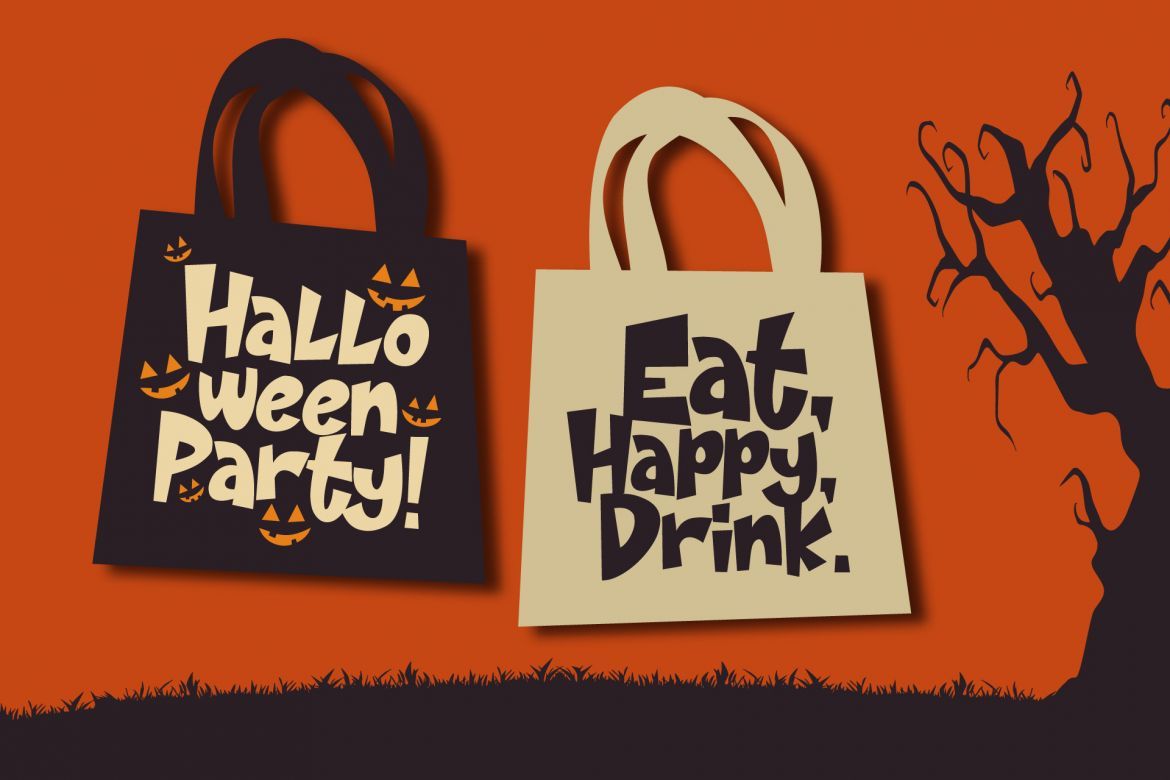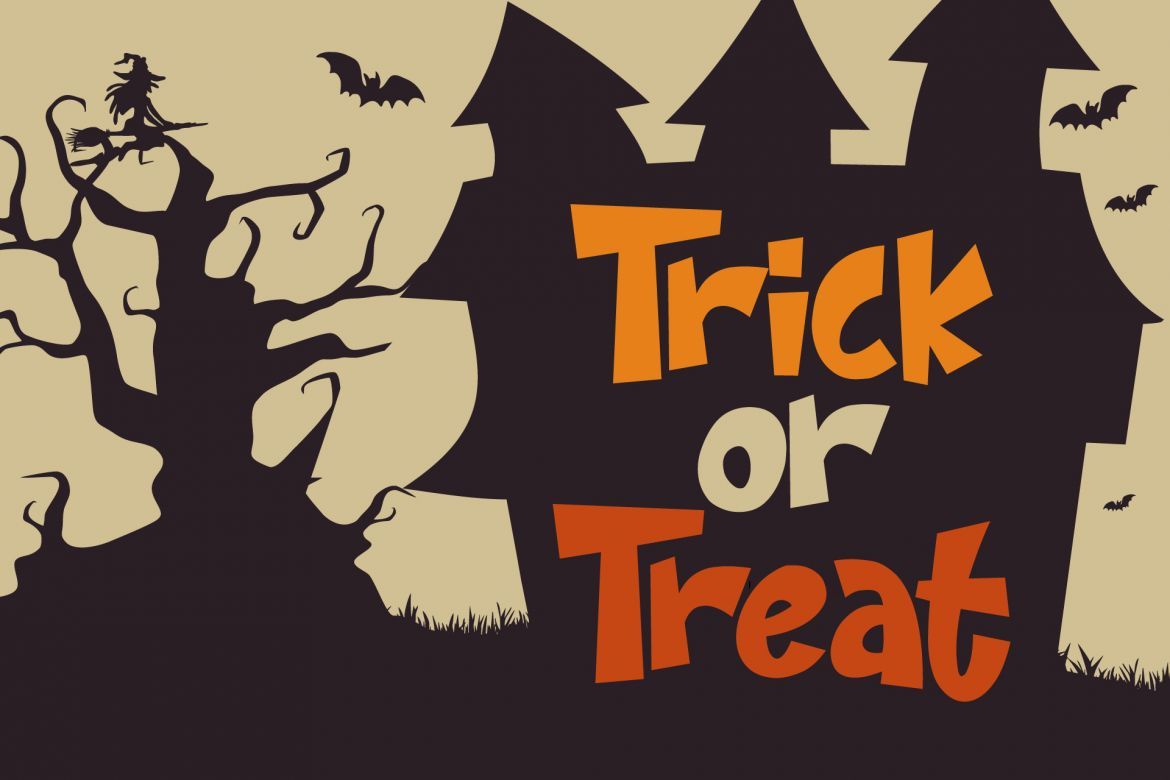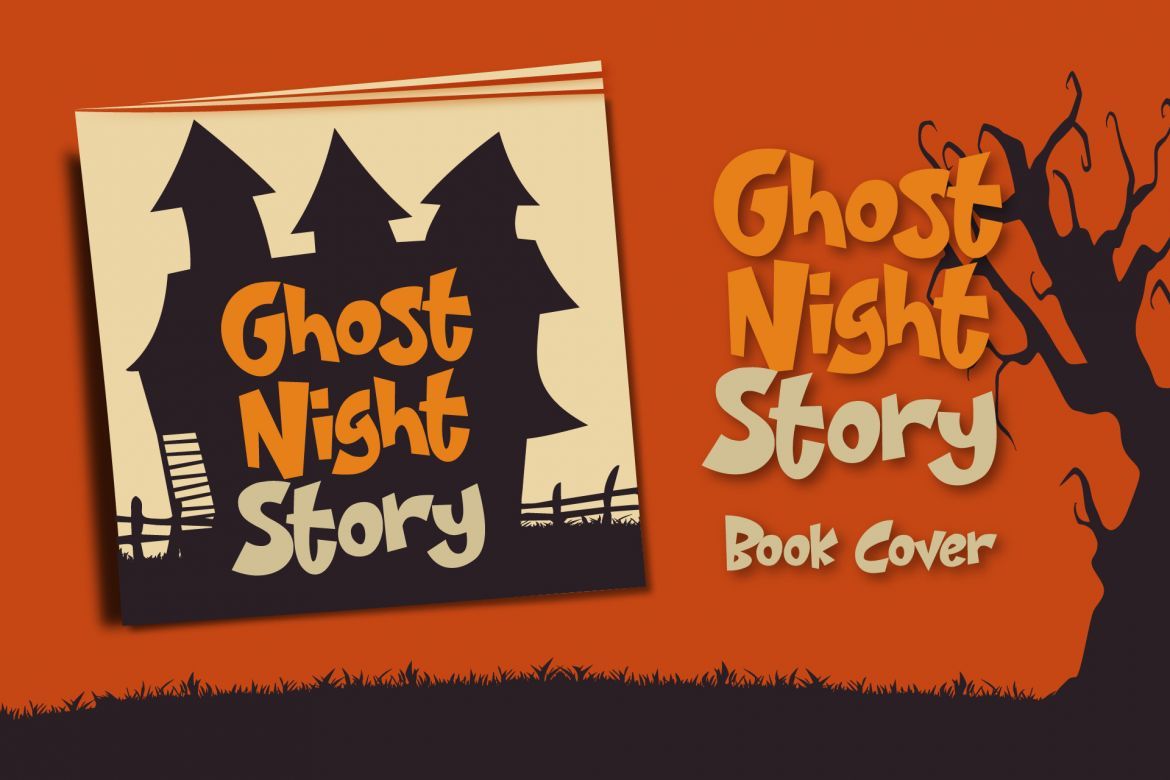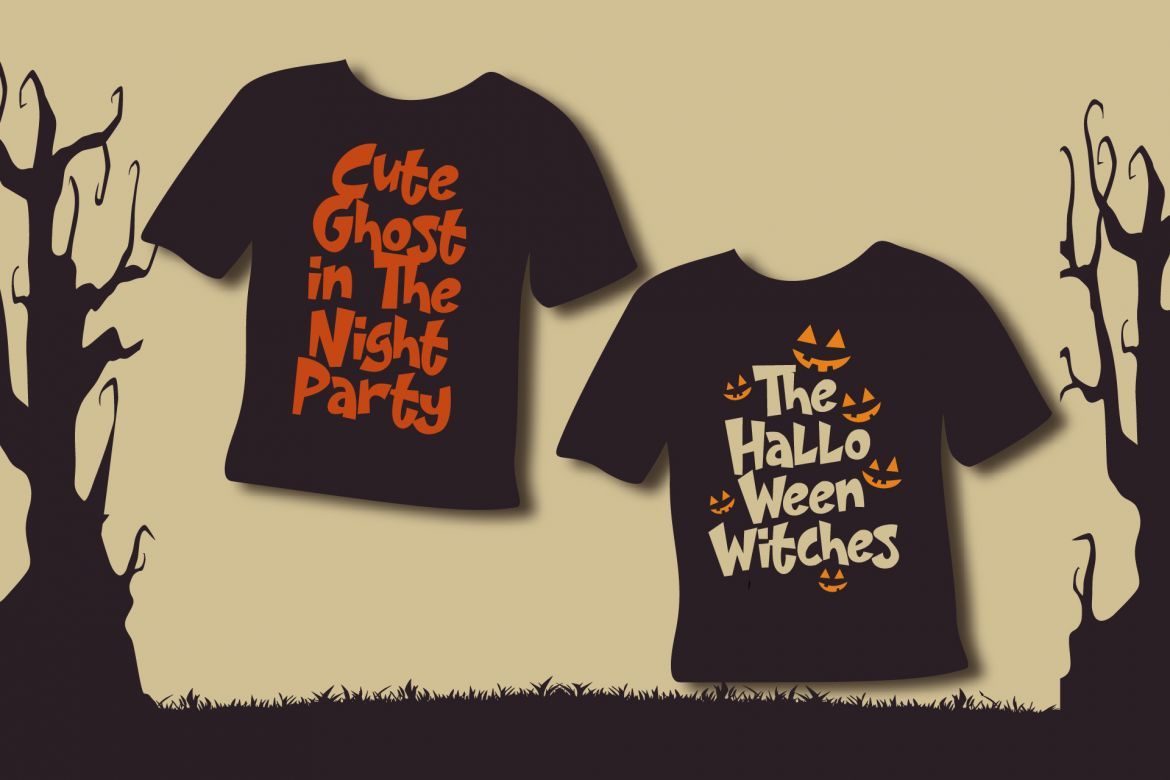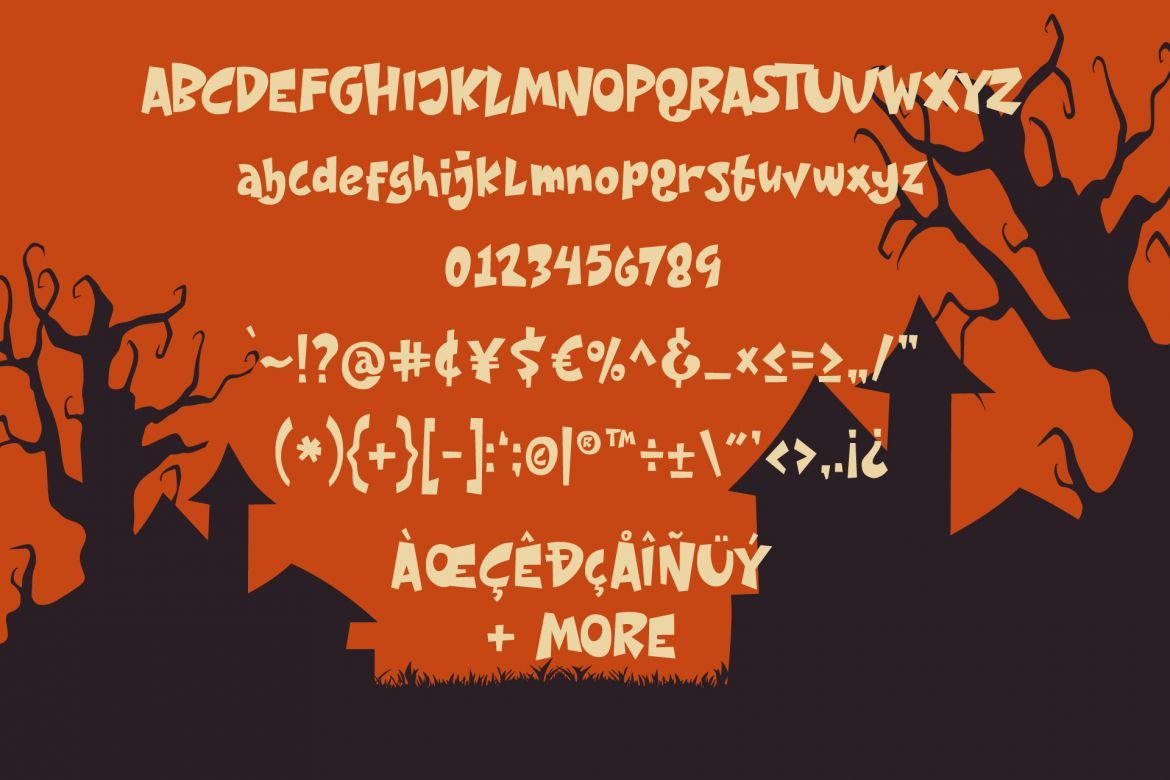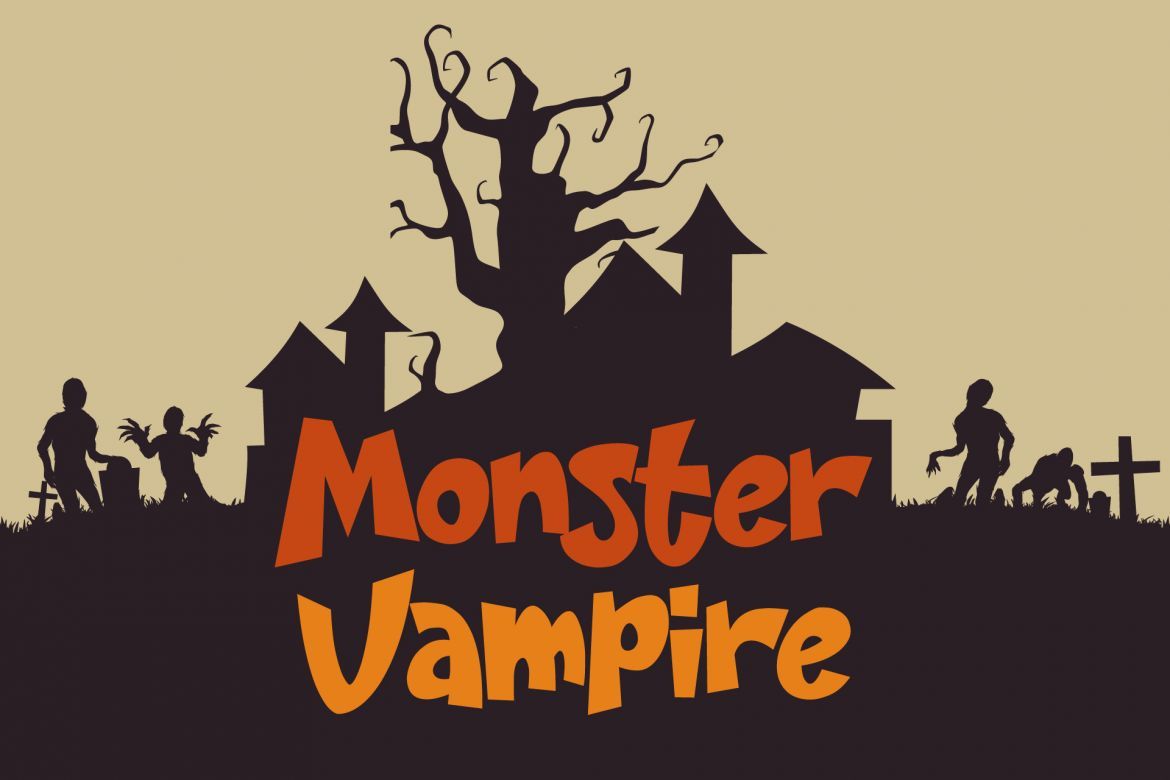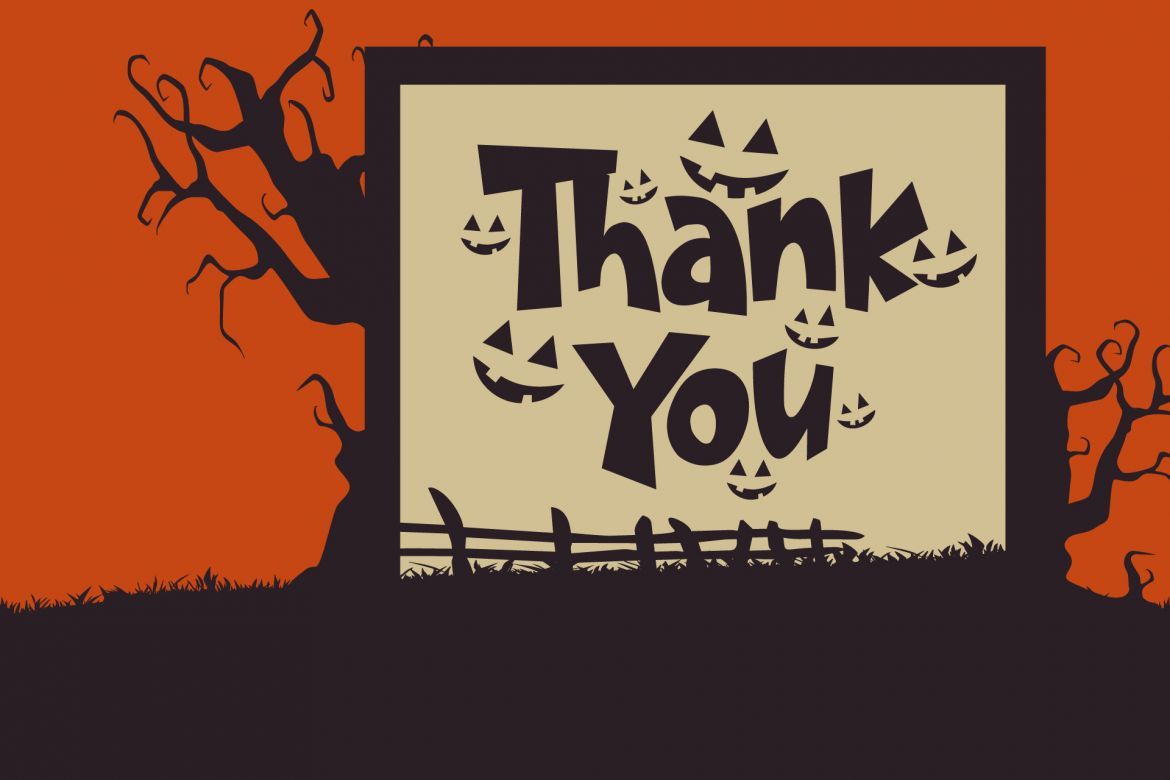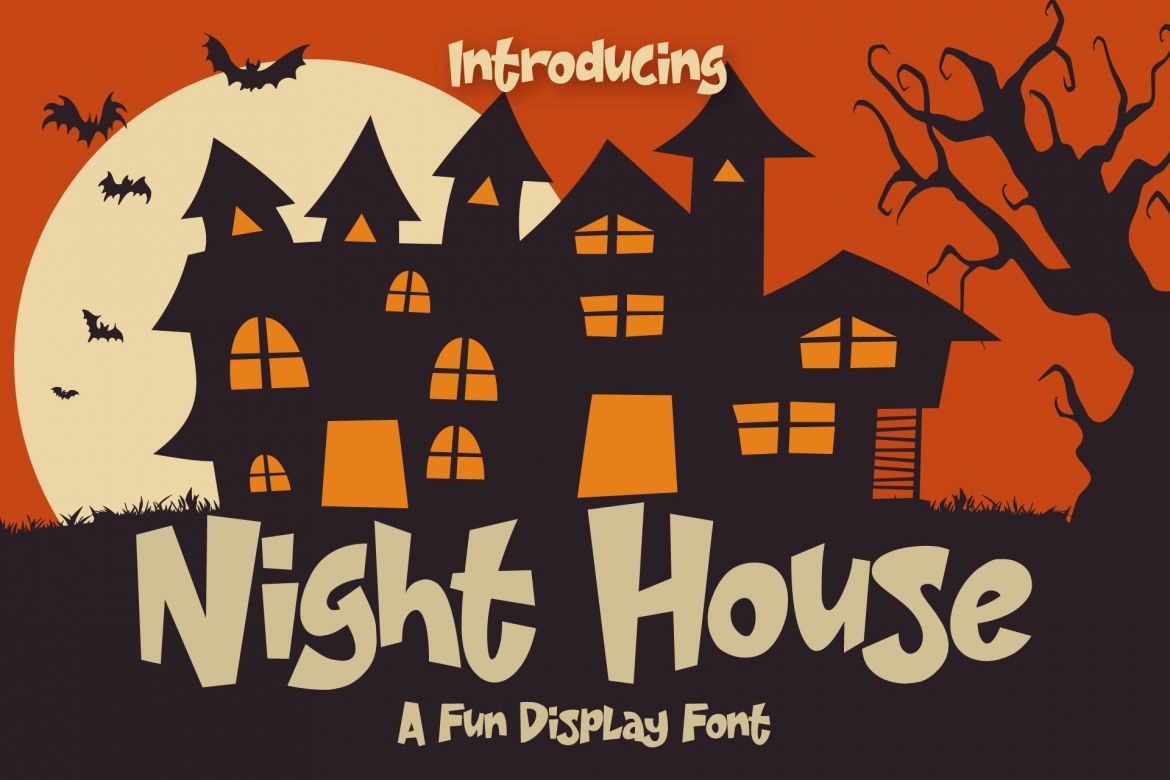
Night House - A Fun Display Font
We just introducing of our new product the name is Night House A Fun Display Font. Night House Font good for halloween poster, horror poster, cartoon, t shirt, childrenbook, book cover, bag, etc.
• - multilingual support
• - uppercase, lowercase, numbers, punctuation & symbols